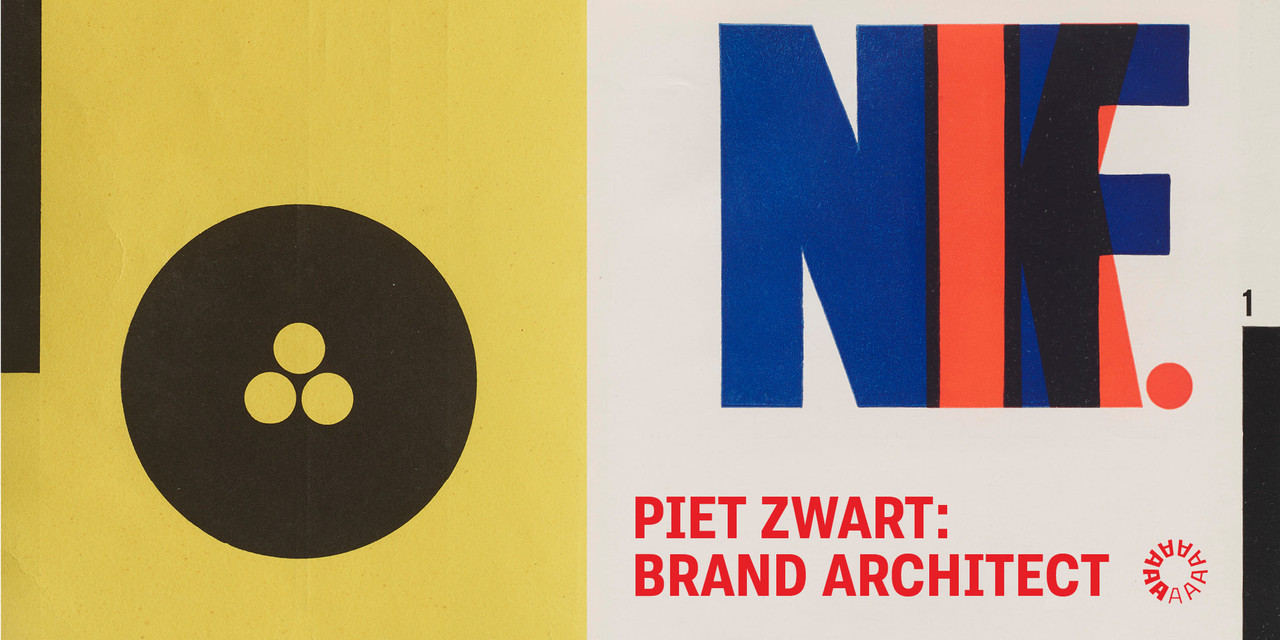
The brilliant Dutch modernist Piet Zwart described himself as a “typotekt”. The term captured his multidisciplinary approach, creating a legacy that bridged architecture, industrial design, interior design, graphic design, typography, and photography. Drawing from Letterform Archive’s deep collection of Zwart’s work, this exhibition explores his iconic graphic identity programs for Nederlandse Kabelfabriek Delft (NKF), Dutch Postal Telegraph and Telephone Company (PTT), Bruynzeel Lumber Company, and others.
From the 1920s to the 1960s, Zwart profoundly influenced both the Netherlands and the international graphic design community, and many of his works are celebrated as milestones in design history. His signature photomontages, playful type compositions, and bold color fields elevated everyday subjects into platforms for graphic experimentation, leaving a lasting imprint on future generations of designers.